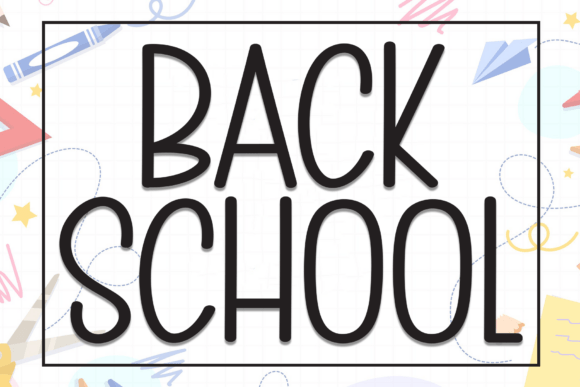
Introducing Back School Font: The Ultimate Casual Display Font for Modern Designs
In the world of typography, fonts play a crucial role in conveying the tone and personality of a brand or design. With the vast array of fonts available, it can be challenging to find the perfect one that embodies the desired aesthetic. However, if you’re looking for a font that exudes a fresh, friendly vibe, look no further than Back School Font. In this article, we’ll explore the features and benefits of Back School Font, and why it’s an excellent choice for your next design project.
What is Back School Font?
Back School Font is a casual and neat display font designed to add a touch of approachability and charm to your designs. With its clean lines and relaxed structure, this font is perfect for creating visually appealing packaging, posters, social media graphics, and more. Its polished appearance makes it an excellent choice for designers who want to add a professional touch to their work without sacrificing creativity.
Key Features of Back School Font
- Clean Lines: Back School Font boasts clean lines that give it a crisp and modern look, making it perfect for designs that require a touch of sophistication.
- Relaxed Structure: The font’s relaxed structure adds a casual and friendly vibe, making it ideal for designs that require a more approachable tone.
- Fresh and Friendly Vibe: Back School Font radiates a fresh and friendly vibe, making it perfect for brands that want to convey a sense of approachability and warmth.
- Polished Appearance: Despite its casual nature, Back School Font maintains a polished appearance, making it suitable for a wide range of design applications.
Uses of Back School Font
Back School Font is a versatile font that can be used in various design applications, including:
- Packaging: Add a touch of personality to your product packaging with Back School Font. Its clean lines and relaxed structure make it perfect for creating eye-catching labels and packaging designs.
- Posters: Create stunning posters with Back School Font. Its bold and yet friendly appearance makes it ideal for posters that require a touch of sophistication and approachability.
- Social Media Graphics: Elevate your social media graphics with Back School Font. Its fresh and friendly vibe makes it perfect for creating engaging and shareable content.
Benefits of Using Back School Font in Your Designs
- Enhanced Readability: Back School Font’s clean lines and relaxed structure make it easy to read, even at smaller font sizes.
- Unique Personality: Back School Font adds a touch of personality to your designs, setting them apart from more traditional fonts.
- Versatility: Back School Font can be used in a wide range of design applications, from packaging to social media graphics.
- Professional Appearance: Despite its casual nature, Back School Font maintains a professional appearance, making it suitable for designs that require a touch of sophistication.
Tips for Using Back School Font Effectively
To get the most out of Back School Font, here are some tips to keep in mind:
- Pair it with Other Fonts: Experiment with pairing Back School Font with other fonts to create a unique and visually appealing typography.
- Use it for Headings: Back School Font is perfect for headings and titles. Use it to add a touch of personality to your designs.
- Experiment with Colors: Back School Font looks great in a variety of colors. Experiment with different colors to find the perfect one for your design.
In conclusion, Back School Font is an excellent choice for designers who want to add a touch of personality and approachability to their designs. With its clean lines, relaxed structure, and fresh, friendly vibe, this font is perfect for a wide range of design applications. Whether you’re creating packaging, posters, or social media graphics, Back School Font is sure to elevate your designs and make them stand out.